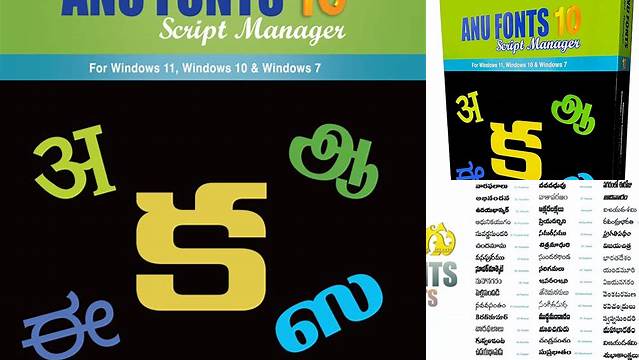
Mastering Anu 7.0 Fonts: Your Ultimate Guide
Understanding the Anu 7.0 Font Family
Alright guys, let's dive into the world of Anu 7.0 fonts. If you're working with graphic design, web development, or even just document creation, you've likely encountered the need for specific font families. The Anu 7.0 font family is one such collection that offers a unique aesthetic and a wide range of applications. This font set is designed to provide clarity, style, and versatility, making it a go-to choice for many professionals and hobbyists alike. When we talk about font families, we're essentially referring to a group of related typefaces that share common design characteristics, differing perhaps in weight, width, or style (like italic). The Anu 7.0 family exemplifies this, offering variations that can be mixed and matched to create dynamic and visually appealing text. Its design principles likely focus on readability across different mediums, whether it's on a high-resolution screen or a printed page. The creators of Anu 7.0 probably put a lot of thought into its kerning, leading, and overall glyph design to ensure a smooth reading experience. Understanding the nuances of each variant within the Anu 7.0 family is key to leveraging its full potential. Are you looking for something bold and attention-grabbing, or perhaps something more subtle and elegant? This family probably has an option for that. Exploring the subtle differences between, say, Anu 7.0 Light and Anu 7.0 Bold can open up a whole new world of typographic possibilities for your projects. It's not just about picking a font; it's about choosing the right tool for the job, and Anu 7.0 seems to be a well-equipped toolbox.
Exploring the Versatility of Anu 7.0 Fonts
One of the most compelling aspects of the Anu 7.0 font family is its sheer versatility. Whether you're designing a sleek, modern website, a professional business card, or an eye-catching social media graphic, Anu 7.0 fonts can adapt to a multitude of styles. Think about it β a clean, sans-serif font like many in the Anu 7.0 family can lend itself perfectly to minimalist designs, offering a sense of order and sophistication. On the other hand, if the family includes serif variations, they might be ideal for more traditional or formal documents, evoking a sense of trustworthiness and classic appeal. The ability to seamlessly transition between these different vibes is what makes a font truly valuable. We're talking about fonts that can be used for headlines, body text, captions, and even logos without losing their impact or legibility. This kind of flexibility is a lifesaver for designers and content creators who often need to work within tight deadlines and varying project requirements. Imagine using Anu 7.0 Light for your website's navigation menu for an airy, modern feel, and then switching to Anu 7.0 Black for your main call-to-action button to ensure it stands out. Thatβs the power of a well-designed font family. The underlying structure of the Anu 7.0 fonts likely allows for excellent scalability, meaning they look great no matter how large or small you make them. This is crucial for responsive design, where elements need to adapt to different screen sizes. So, when you're considering your next design project, remember the adaptability that the Anu 7.0 font family brings to the table. It's a chameleon in the world of typography, ready to suit your every need.
Anu 7.0 Fonts for Web Design and UI
For all you web designers and UI enthusiasts out there, let's talk about how Anu 7.0 fonts can seriously level up your digital creations. In the fast-paced world of web design, legibility and aesthetic appeal go hand-in-hand, and this font family seems to hit that sweet spot. When users land on a website, the first thing they notice is the typography. Clear, engaging fonts draw them in, while clunky or hard-to-read ones can send them running for the hills. Anu 7.0 fonts, particularly their digital-optimized variants, are likely designed with screen rendering in mind. This means sharp edges, balanced character spacing, and clear distinctions between similar characters (like 'I', 'l', and '1') to prevent confusion. Using Anu 7.0 for your body text can ensure that even long articles are a pleasure to read, reducing bounce rates and keeping visitors engaged. For headings and call-to-action buttons, the bolder weights of Anu 7.0 can grab attention without being overly aggressive. Think about implementing Anu 7.0 in different weights to create a visual hierarchy on your site β maybe a lighter weight for subheadings and a heavier weight for main titles. This not only looks professional but also guides the user's eye through the content effectively. Furthermore, web fonts need to load quickly to avoid slowing down your site. If Anu 7.0 fonts come with optimized file sizes, that's a huge win. Many modern font families are offered in formats like WOFF2, which are specifically designed for efficient web delivery. So, guys, if you're looking for a font family that combines modern aesthetics with practical web performance, definitely give Anu 7.0 a serious look for your next UI project. It's all about making that digital experience smooth and stylish.
Choosing the Right Anu 7.0 Font Weight
Okay, let's get down to the nitty-gritty of Anu 7.0 fonts: choosing the right weight. This might sound minor, but trust me, picking the correct font weight can make or break your design. We're talking about the difference between a whisper and a shout, a subtle hint and a bold declaration. The Anu 7.0 family likely offers a spectrum of weights, from the ultra-light and airy to the thick and commanding. Each weight serves a distinct purpose. Light weights (like Thin or Light) are fantastic for creating a sense of elegance and sophistication. They work wonders for captions, secondary text, or subtle branding elements where you want to convey refinement without overpowering the reader. On the flip side, you have your heavyweights β Bold, ExtraBold, Black. These are your attention-grabbers. Use them for headlines, key statistics, or call-to-action buttons where you need immediate impact. A well-placed bold headline in Anu 7.0 can immediately draw the reader into your content. Medium weights (like Regular or Medium) are your workhorses, your everyday heroes. They are perfect for body text, ensuring readability and a comfortable reading experience for extended periods. When designing, consider the context. For a formal invitation, you might lean towards lighter weights for a more delicate feel. For a sports event poster, you'd probably want to use the heavier weights to convey energy and excitement. The key is contrast. Pairing a light weight with a bold weight from the same Anu 7.0 family creates a pleasing visual rhythm and hierarchy. This internal consistency is crucial for a professional look. So, next time you're working with Anu 7.0, don't just pick the default β explore the full range of weights and use them strategically to communicate your message effectively. It's all about adding that extra layer of meaning and visual interest, guys!
Anu 7.0 Fonts for Branding and Identity
When it comes to building a strong brand identity, the font you choose is arguably one of the most critical elements. Itβs the visual voice of your company, and the Anu 7.0 font family can be a powerful tool in crafting that distinct voice. Think about it: a brand's typography needs to be consistent across all platforms β from its logo and website to its marketing materials and social media. If Anu 7.0 offers a range of weights and styles, it provides the flexibility to create a cohesive typographic system for your brand. For instance, a company might use a unique Anu 7.0 variant for its primary logo, conveying a specific personality β perhaps modern and tech-savvy, or classic and reliable. Then, they could utilize other Anu 7.0 fonts for headlines, body copy, and even UI elements, ensuring that every touchpoint reinforces the brand's visual language. The goal is recognition and memorability. A distinctive font choice helps customers easily identify and remember your brand. If the Anu 7.0 family has a particular characteristic β maybe a unique ligature, a distinctive serif, or a particularly clean sans-serif structure β that can become a recognizable part of your brand's DNA. Beyond just appearance, the feeling a font evokes is crucial. Does Anu 7.0 feel friendly and approachable? Or is it more serious and authoritative? Understanding these emotional connotations will help you select the weight and style that best aligns with your brand's mission and target audience. A strong brand shouldn't just look good; it should feel right, and the right Anu 7.0 font can help achieve just that. Remember, consistency is king in branding, and a versatile family like Anu 7.0 can make maintaining that consistency a whole lot easier, guys.
Pairing Anu 7.0 Fonts with Other Typefaces
Alright, let's talk about the art of font pairing, specifically when using Anu 7.0 fonts. While a single font family can offer a lot of variety, sometimes you need to introduce another typeface to create more dynamic and visually interesting designs. The trick is to pair them in a way that complements, rather than clashes. A great starting point when pairing Anu 7.0 is to consider its core characteristics. Is it a sans-serif? A serif? Is it geometric, humanist, or grotesque in style? Once you understand the personality of your chosen Anu 7.0 font, you can start looking for a partner. A common and effective strategy is the